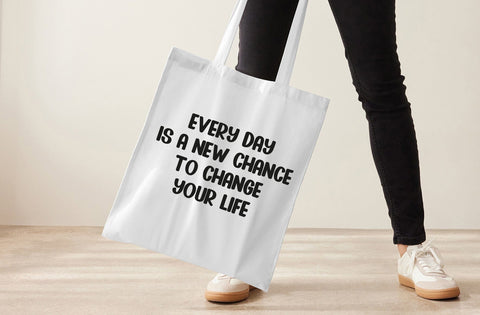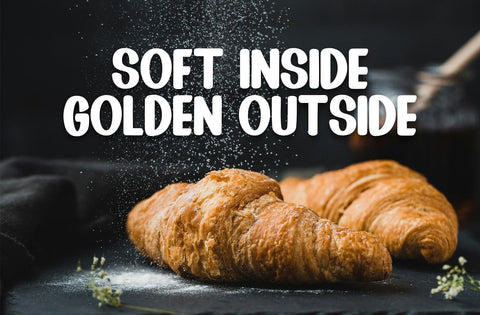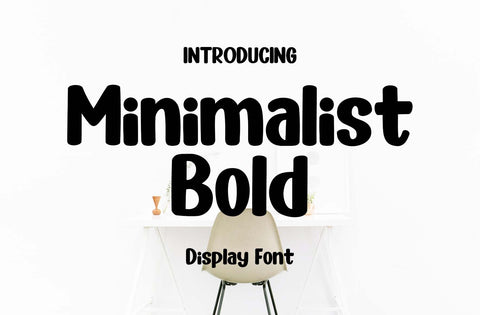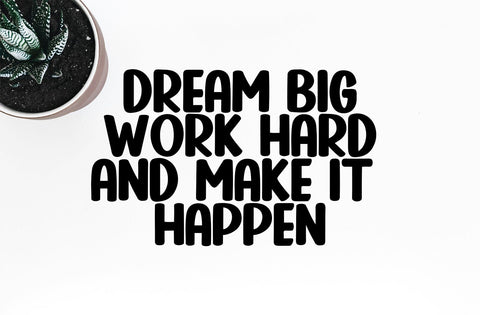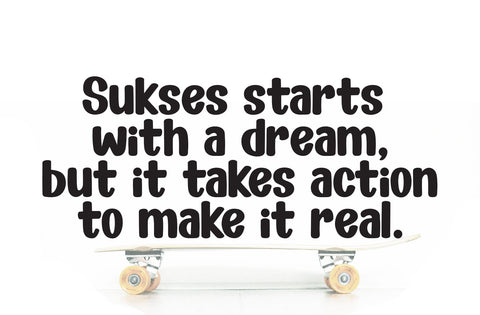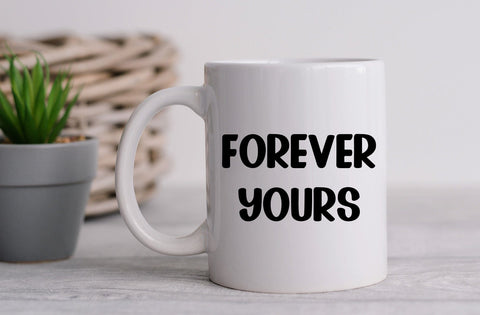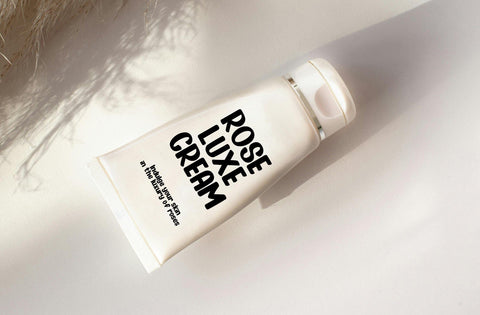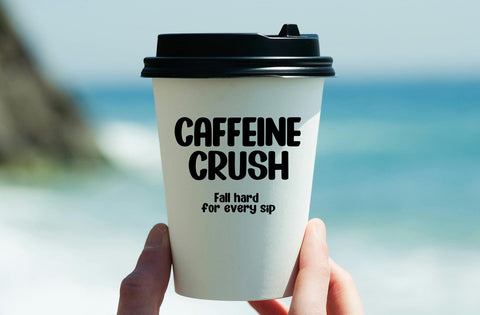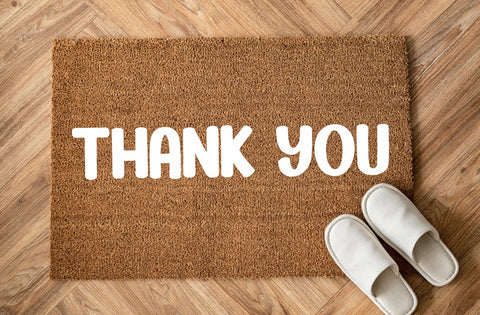
Minimalist Bold
Minimalist Bold is simple display font is a clean, minimalistic typeface designed for maximum readability and visual clarity. It uncomplicated letterforms that make it perfect for showcasing text in large sizes, such as in headlines, titles, or prominent signage. The font’s straightforward design allows it to convey messages clearly without unnecessary embellishments, making it a versatile choice for modern, professional, and aesthetically simple designs. It is ideal for applications that require a balance of simplicity and style.
perfect for Headlines and Titles, Branding and Logos, Website Typography, Posters and Flyers, Social Media Graphics, Product Packaging, Invitations and Event Announcements, Editorial Design, Mobile Applications, and Infographics.